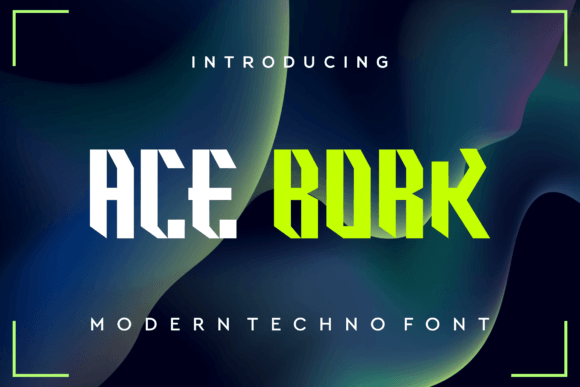
Unlock the Power of Creative Expression with Acebork Font
Have you ever stared at a blank page, eager to bring a fresh idea to life, but struggling to find the perfect font to set the tone? We’ve all been there. The search for the perfect font can be a daunting task, but what if you stumbled upon one that would elevate your creations and leave a lasting impression?
Enter Acebork Font, a modern sans serif font that exudes a cool techno vibe. Designed to make a statement, this font is perfect for any creative project, whether it’s a blog post, a social media campaign, or a graphic design piece. With its sleek and modern design, Acebork Font has the potential to take your work to the next level and leave a lasting impact on your audience.
As a valuable asset to any designer’s library, Acebork Font is a must-have for anyone looking to add a touch of modernity and sophistication to their work.
Acebork Font Key Features
- Font Family: Acebork is a modern sans-serif font with a unique blend of geometric and organic elements.
- Character Set: Supports a comprehensive character set, including Latin, Cyrillic, and Greek alphabets, as well as a range of punctuation and symbols.
- Size: Offers a range of font sizes, from 8pt to 72pt, making it suitable for use in various design applications, from small text to large headings.
- Resolution: Designed to be highly legible at resolutions as low as 72 DPI, making it ideal for use in digital media, such as websites, mobile apps, and e-books.
- Unique Characteristics: Acebork features a distinctive, hand-crafted feel, with subtle irregularities and nuances that give it a unique personality.
Acebork Font Review
I recently had the chance to work with the Acebork font, and here’s my honest take on it.
Unique aesthetic: Acebork’s blend of modern and retro elements sets it apart from more traditional fonts.
High legibility: Even at smaller font sizes, the text remains clear and easy to read.
Good for headings: The font’s bold, eye-catching qualities make it perfect for headings and titles.
May not be suitable for body text: While the font is great for headings, it may not be the best choice for large blocks of body text.
Limited language support: Some languages may not be fully supported by the font, which could lead to formatting issues.
Not ideal for small text: The font’s unique style may become lost at very small text sizes.
The Acebork font is a great addition to any designer’s toolkit, offering a unique aesthetic and high legibility. While it may have some limitations, it’s perfect for projects where a bold, eye-catching font is needed.
To get the most out of the Acebork Font, use it in combination with other creative elements, such as images and graphics. Experiment with different font sizes, colors, and styles to create a unique and engaging design.
The Acebork Font is ideal for use in creative projects, such as:
- Graphic design and branding
Q: What are the technical specifications of the Acebork Font?